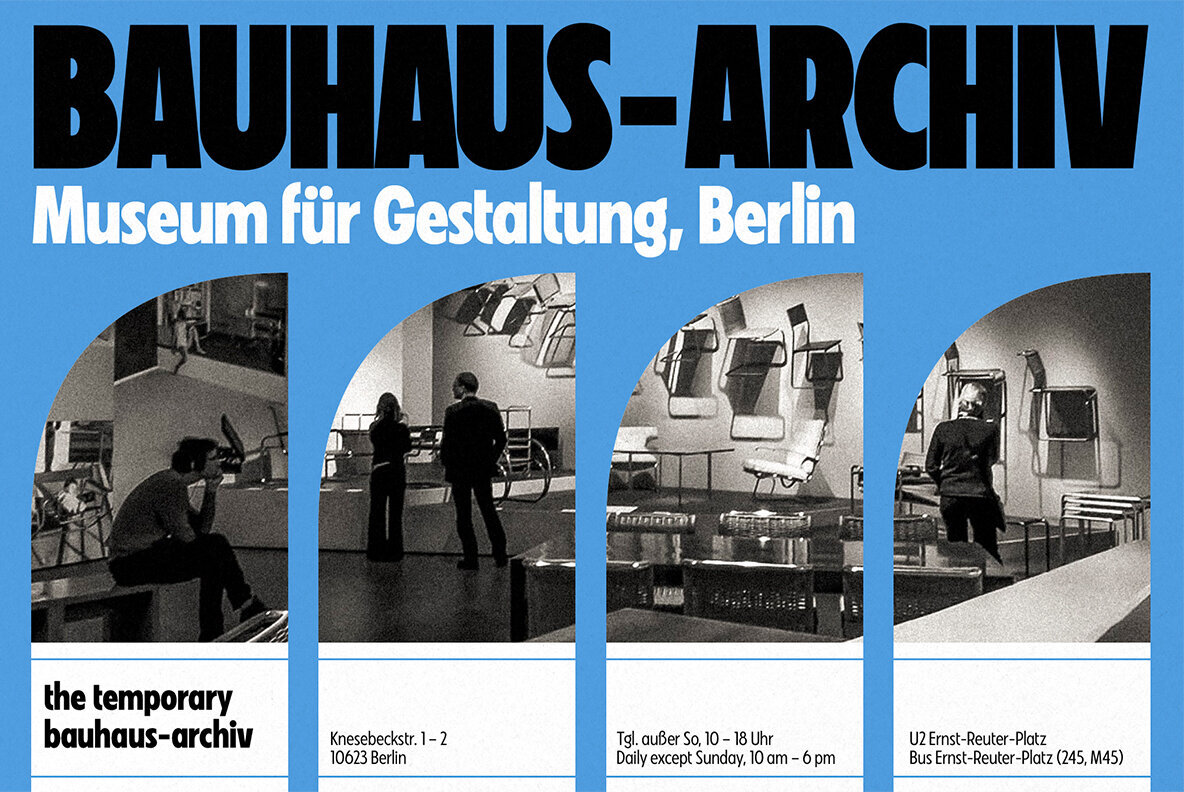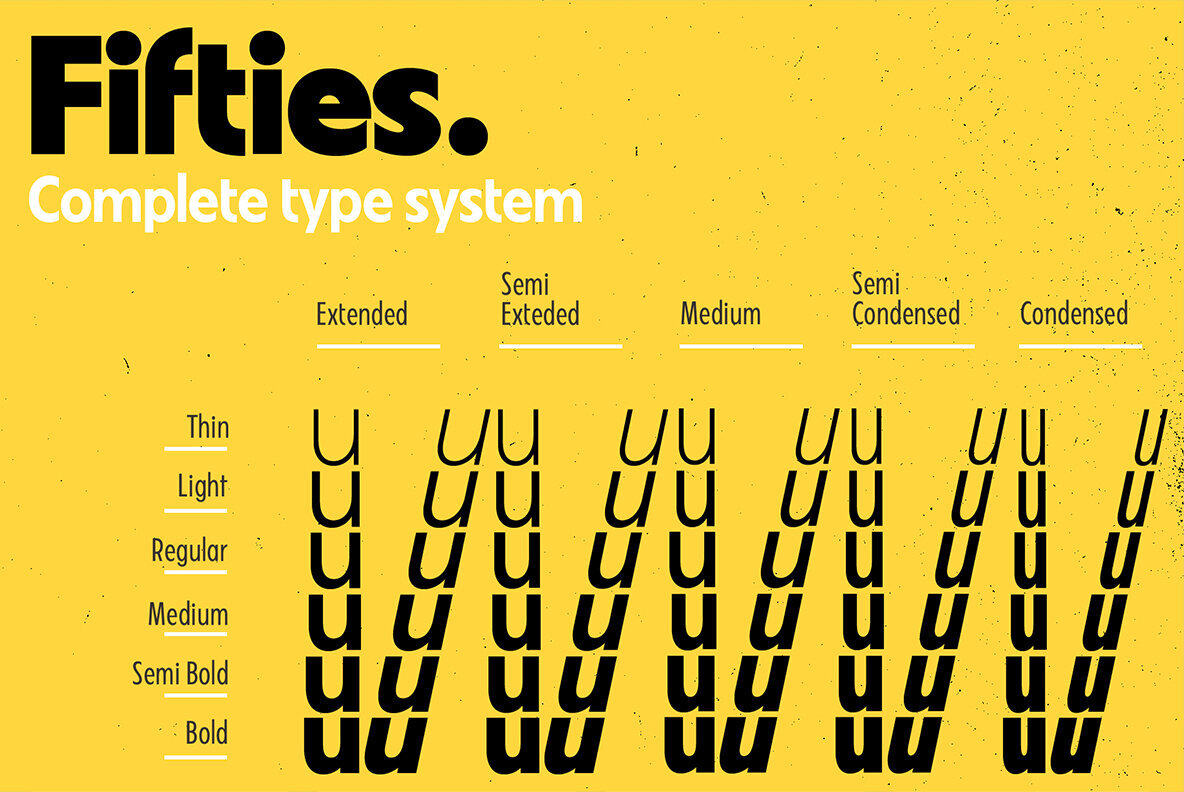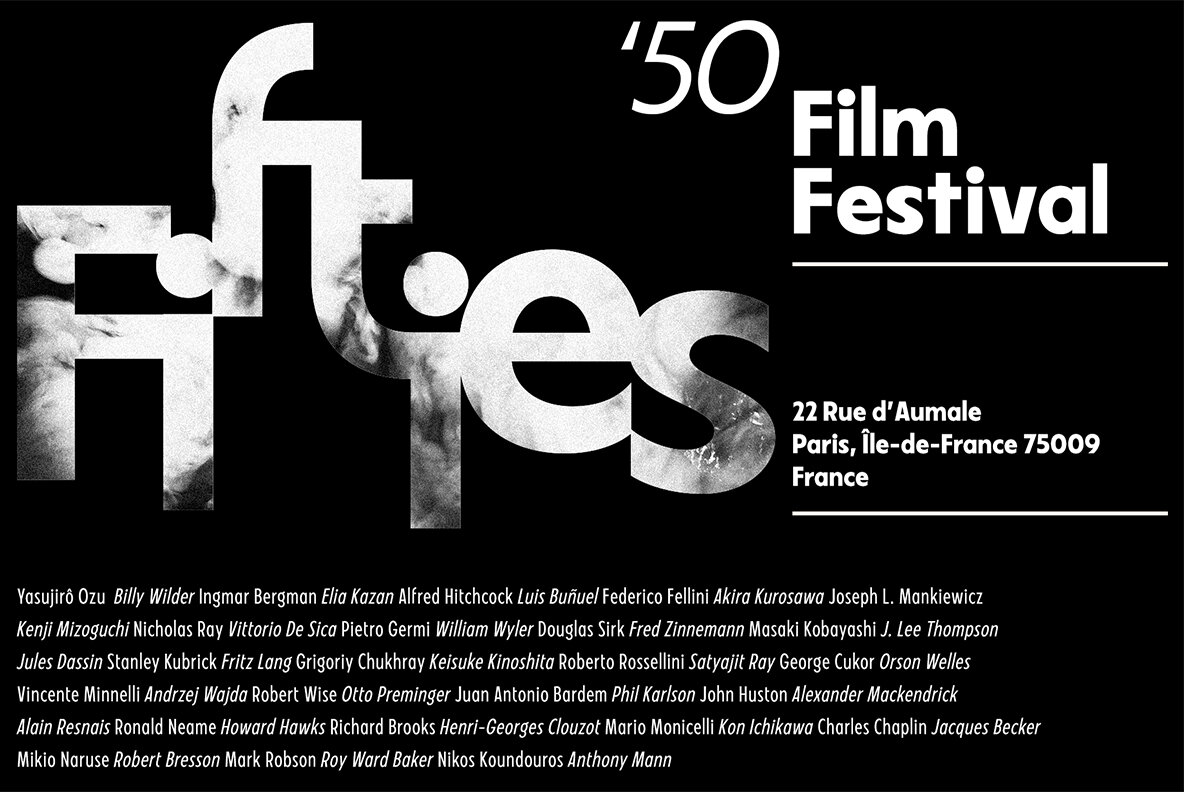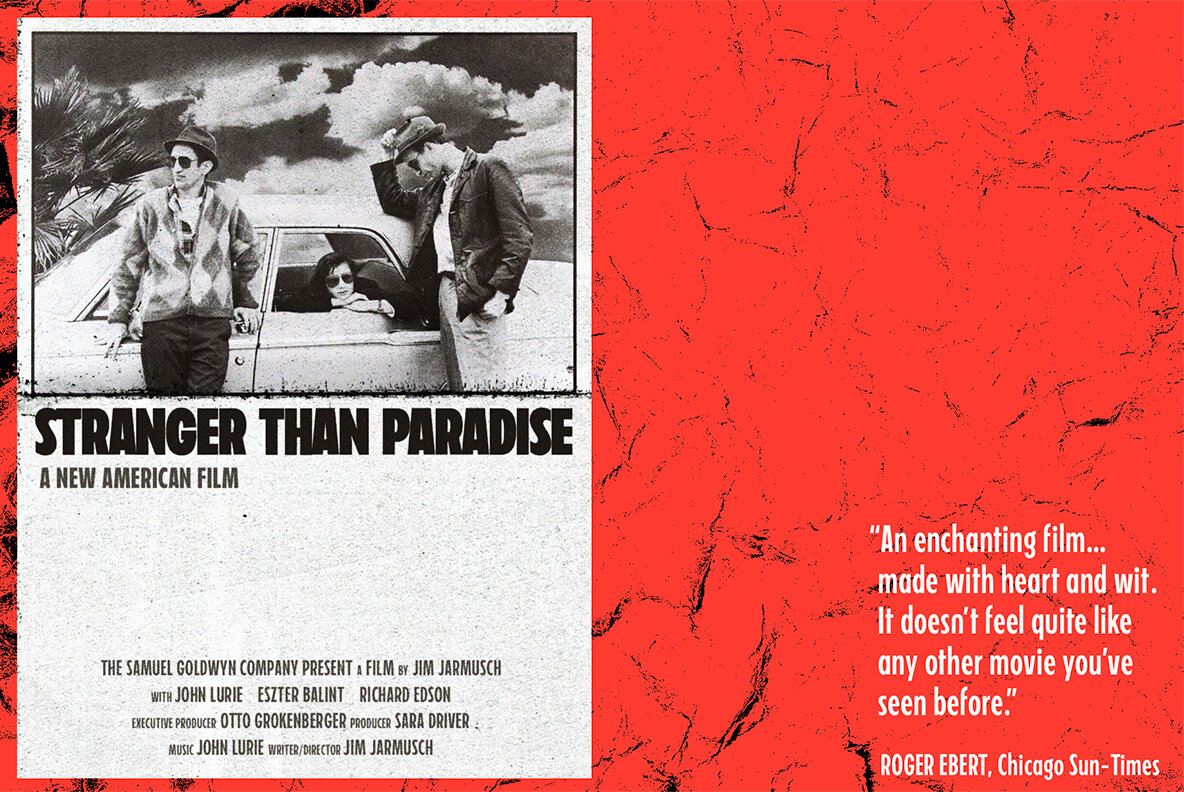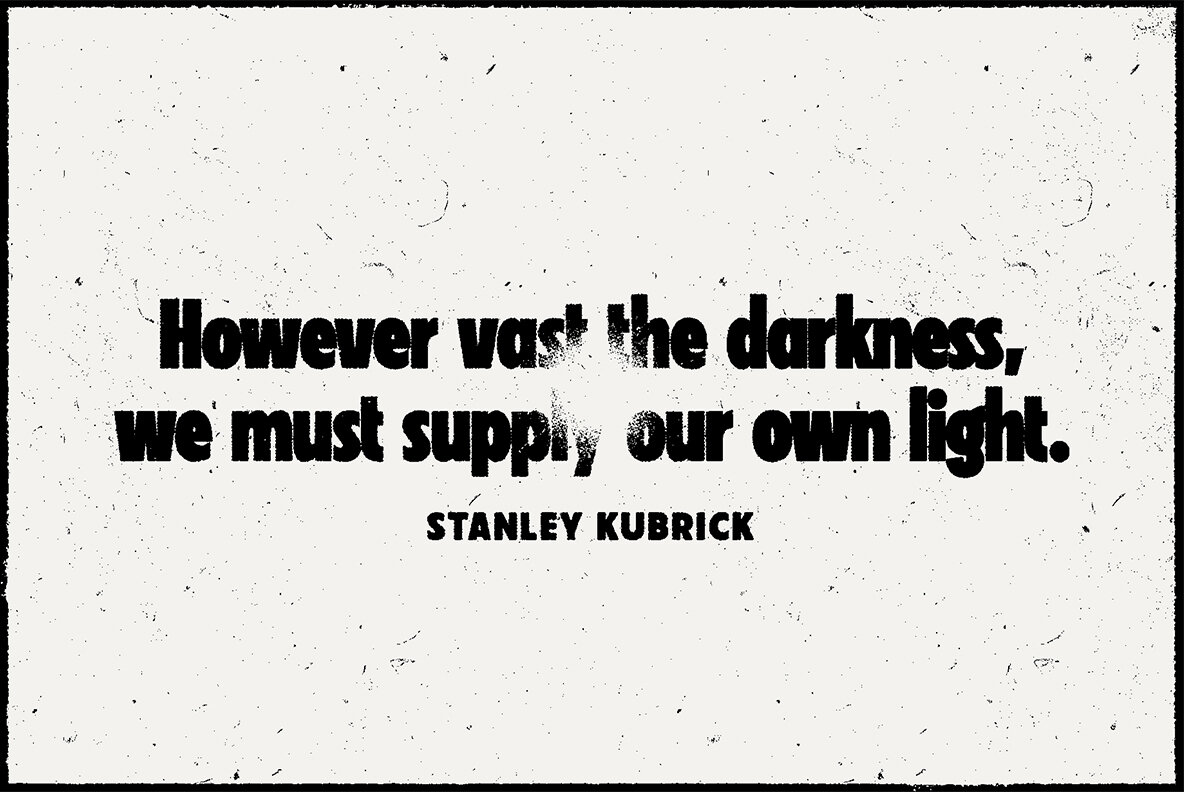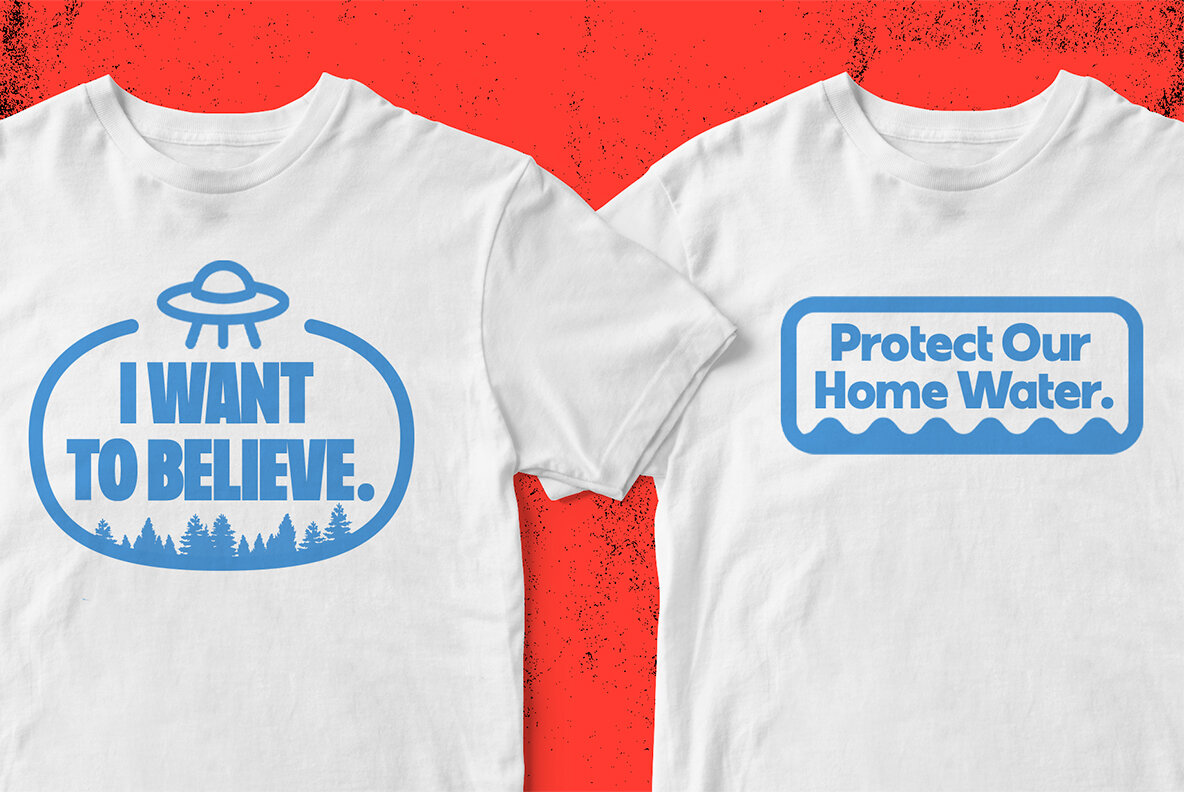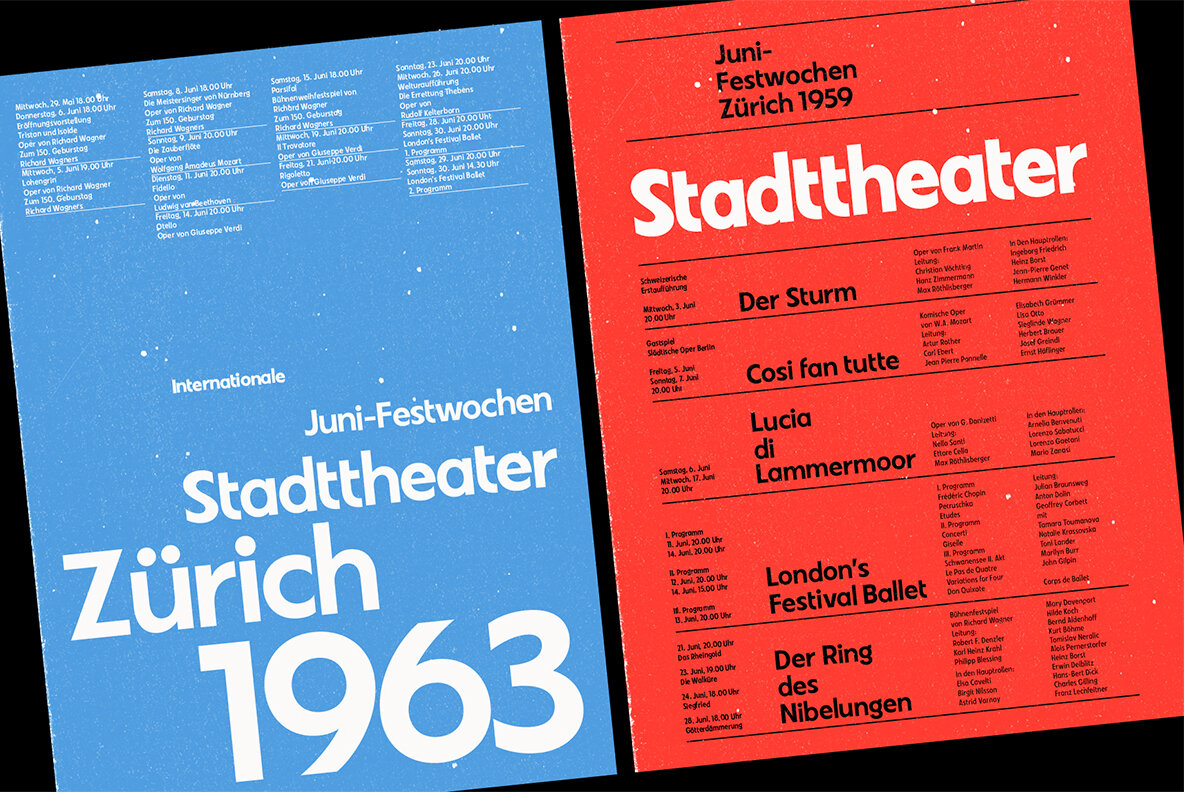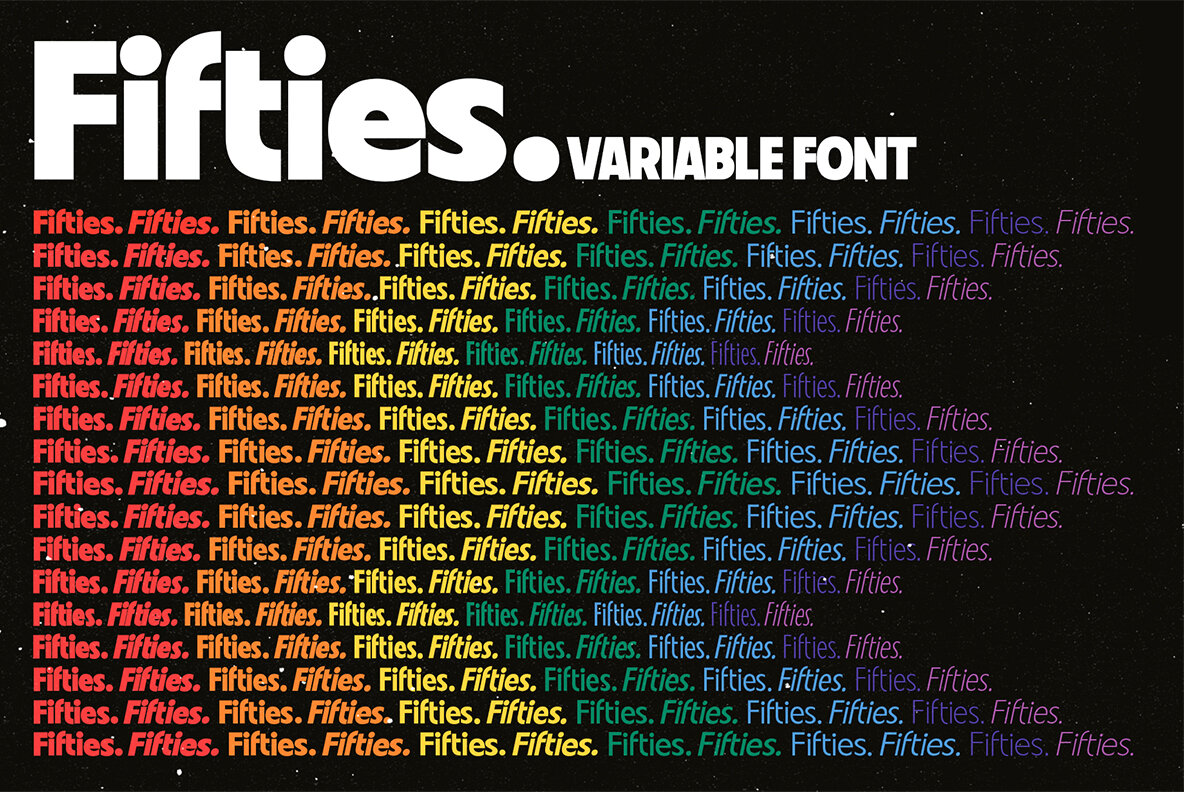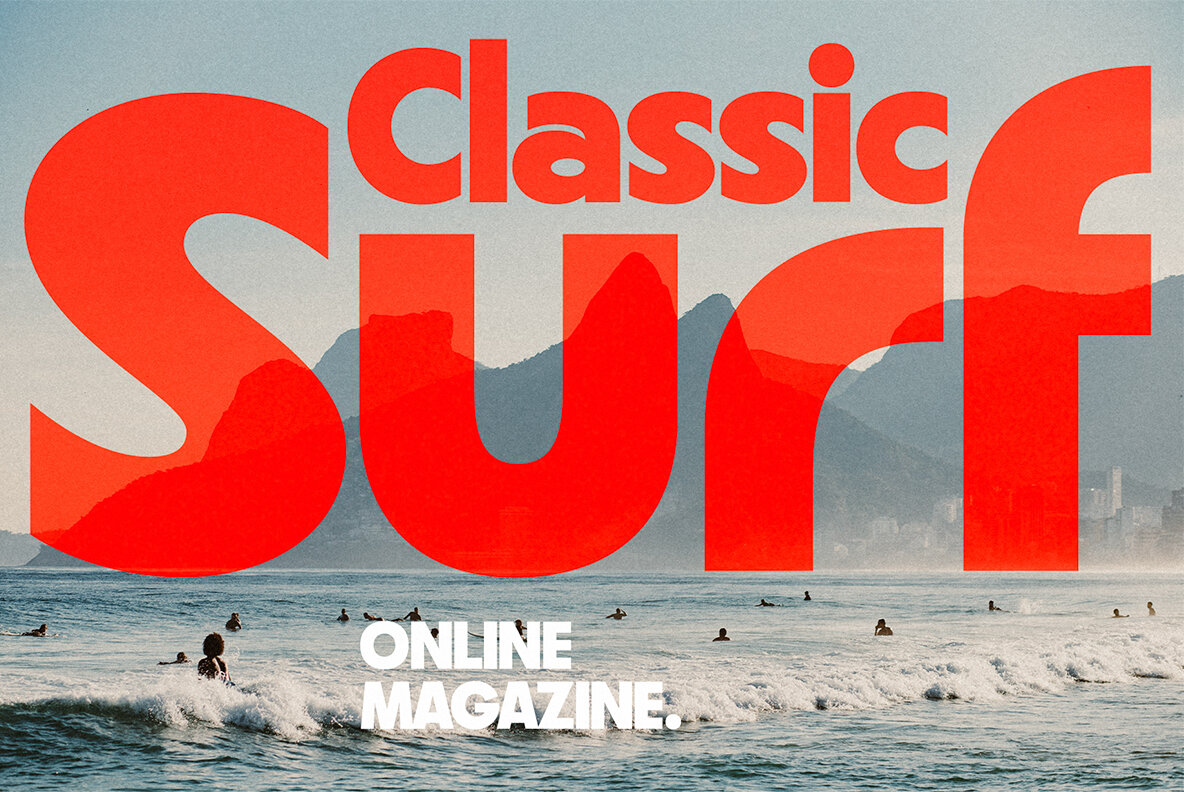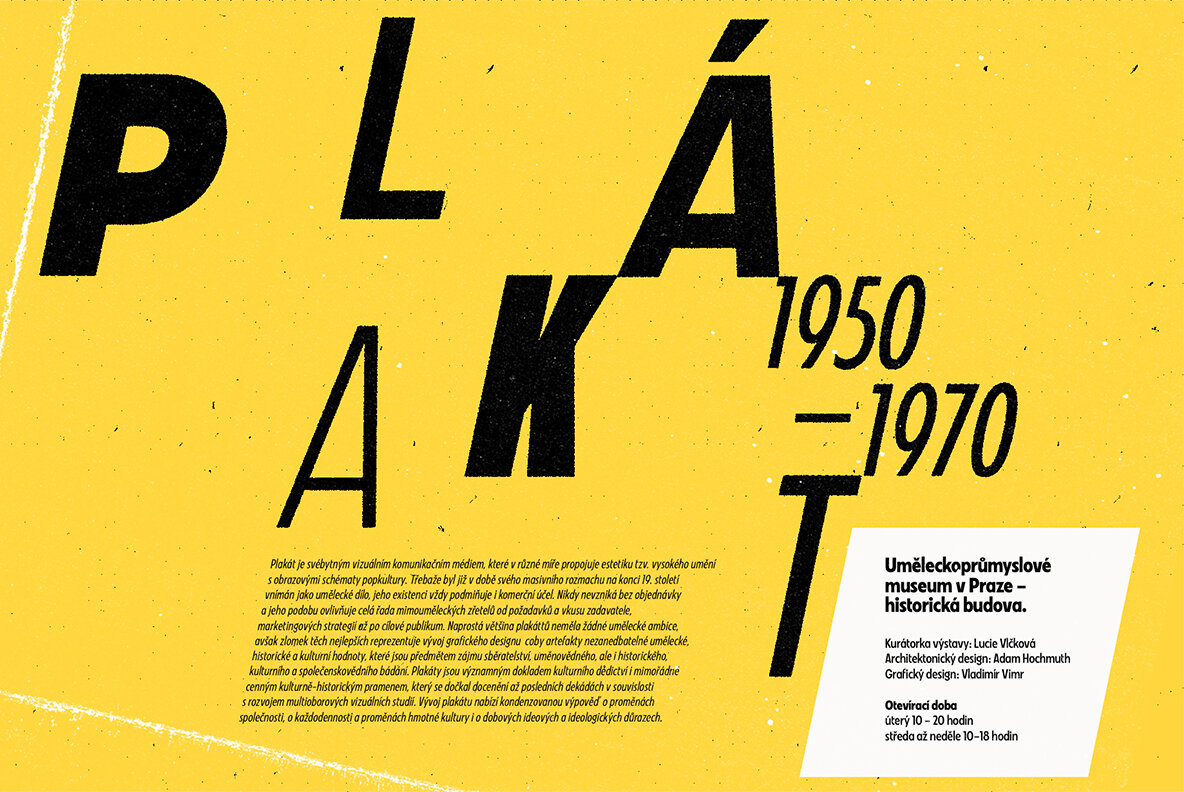
VVDS Fifties Font
Fifties is a mix of classic geometric and a bit of humanistic grotesque. The goal was to create the font for present with look to the past. In other words, I tried to came back the Modernism aesthetics of XX century into nowadays. The result gives you 60 styles including Italic (Slanted). Your typography may be airy and elegant with Expanded Thin, catchy and expressive with Condensed Bold or dynamic and sharp with Expanded Bold Italic. You will find your way to use this family certainly. Theatre posters or party flyers, vintage t-shirt or modern web service, movie titles or magazine header and even infographic – Fifties will suit you everywhere. You may use the completed styles or may use a Variable Font. To make it as you want to. • Weights: Thin / Light / Regular / Medium / Semi Bold / Bold. • Widths: Condensed / SemiCondensed / Medium / SemiExpanded / Expanded • OTF, WEB and Variable Font (TTF) • OpenType features: - Stylistic alternates for A, G, K, M, N, R, W, a, e, g, j, m, n, r, t, u, w, y; - Fraction figures; - Subscript and Superscript figures; - Tabular figures; - Typographic spaces: Em / En / Third / Quarter / Thin / Sixth / Hair